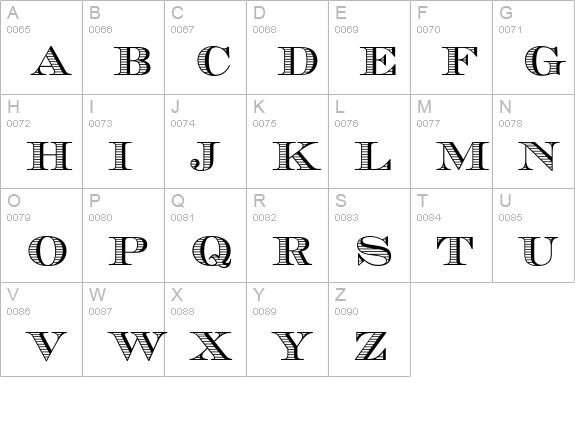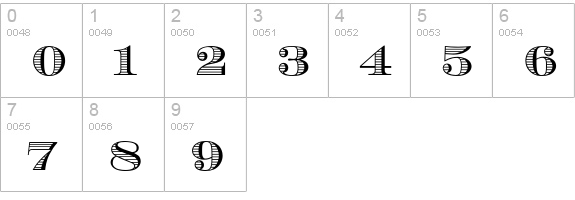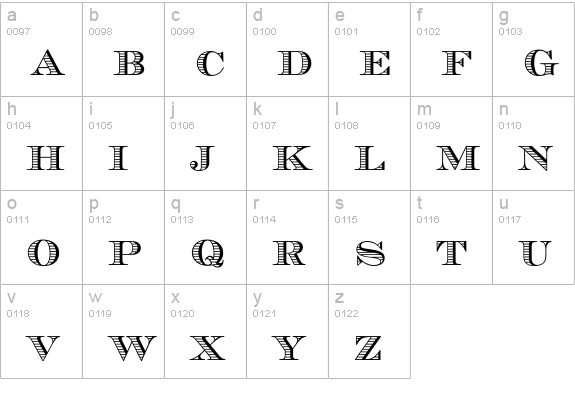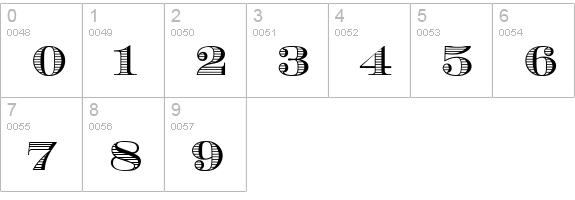
Chevalier Caps Regular Font Details
Chevalier Caps Regular is the standard, neutral variant in the Chevalier typeface family \xE2\x80\x94 well suited to general body text, paragraphs, and standard typographic work.
Chevalier Caps Regular font exudes an air of sophistication and elegance with its classic yet modern design. The sleek lines and refined details make this typeface perfect for adding a touch of style to any project. The timeless appeal of Chevalier Caps Regular font makes it a versatile choice for a wide range of applications, from branding to editorial design. What sets Chevalier Caps Regular font apart is not just its aesthetic appeal, but also its accessibility. This premium font is available for free download at FontsMarket.com, allowing designers and creatives to easily incorporate it into their work without any barriers. With its clean and crisp letterforms, Chevalier Caps Regular font is sure to elevate any design project and make a lasting impression on viewers.